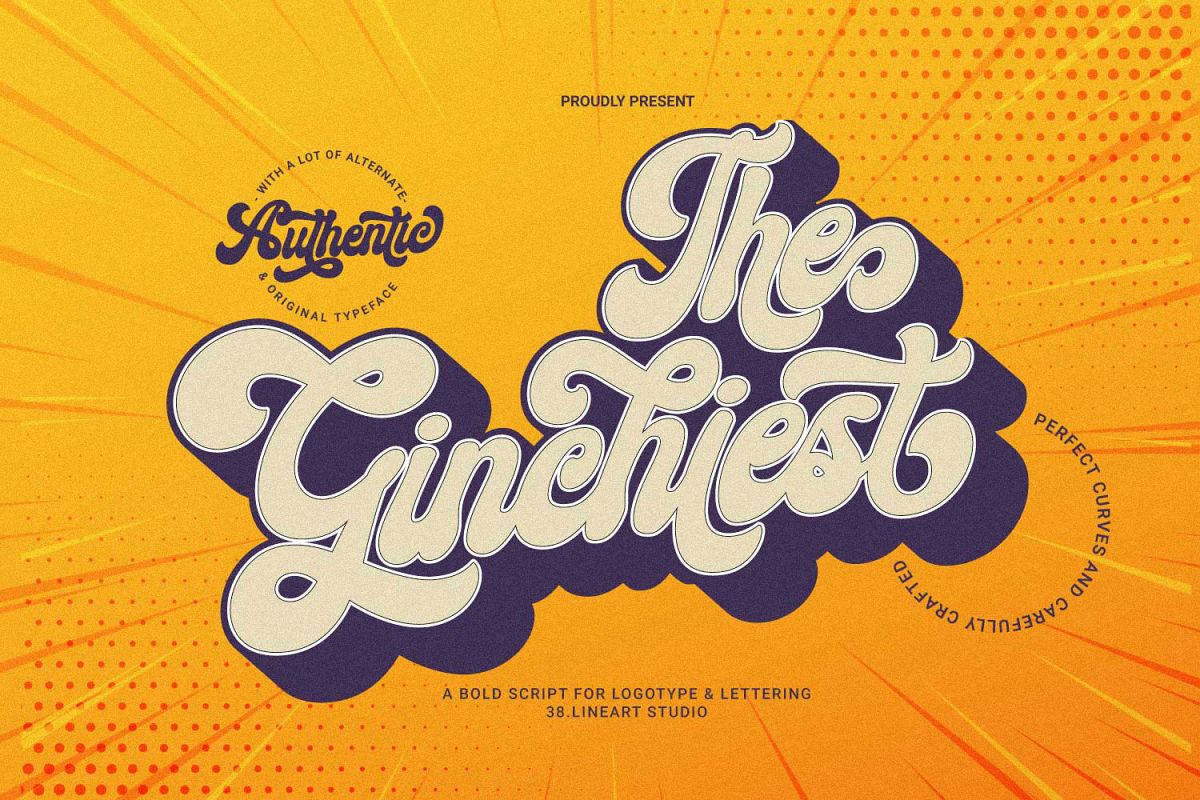
The Ginchiest
Ginchiest Shadow
Ginchiest
We introduce our new font named Ginchiest. According to its name, the word ‘Ginchiest’ is slang for something interesting, the coolest, the hippest, the prettiest, the smartest, the most fun to be around. You’re the ginchiest! Maybe this is slang you have heard about; it represents Ginchiest font perfectly.
The Ginchiest is a bold script font with retro vintage style. This font is perfect for you lettering lovers because we prepared lots of alternates and ligatures that are very eye-catching.
And of course we also designate this font for branding; it's great in logos and logotypes. Bold style make your product look very confident to appear in the public market.
No doubt - its great choice for lettering and logotype. You’re the Ginchiest!